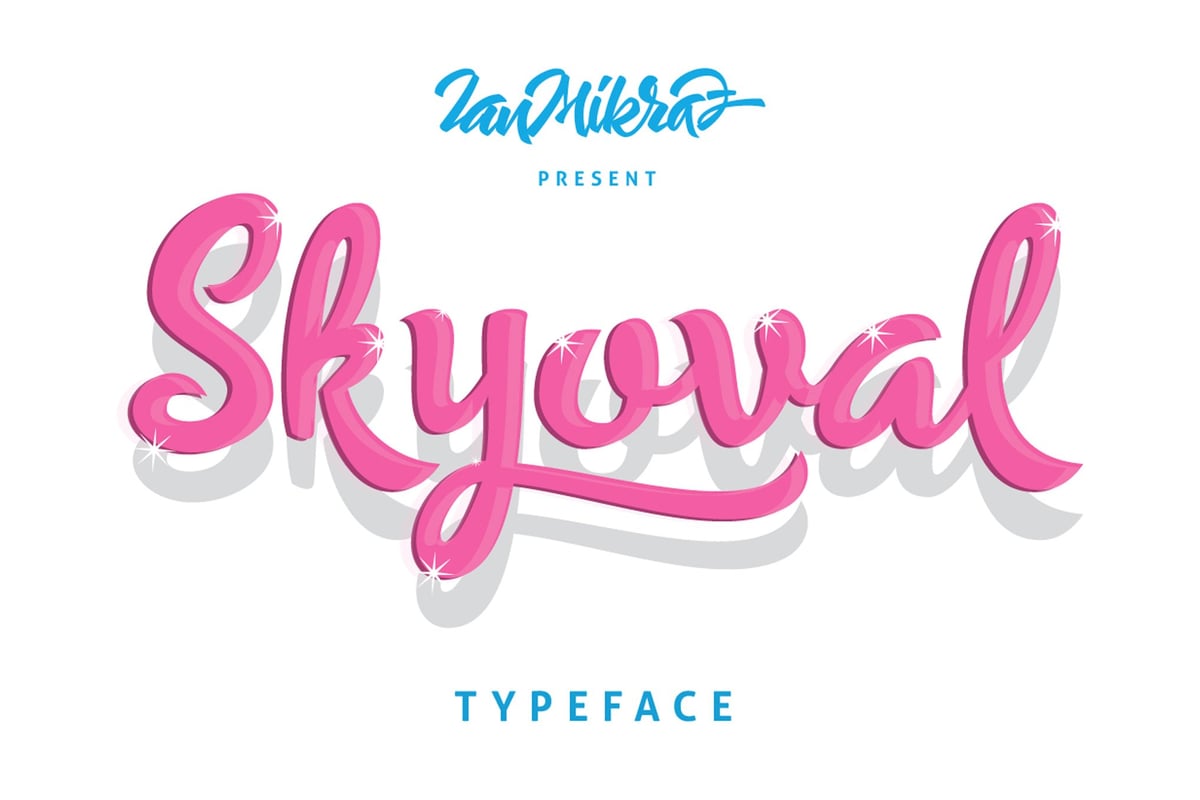
Skyoval Typeface
Skyoval is a bold, modern calligraphy typeface built for designers who want elegant hand-lettered style with professional flexibility.
Skyoval Typeface is a stylish hand-lettering script that blends boldness with elegance. Whether you're designing a logo, branding for an apparel line, or any project that calls for a natural, personal touch — Skyoval delivers with confidence.
Packed with 344 glyphs and 156 alternate characters, this typeface gives you plenty of creative freedom to mix and match letterforms for a truly custom look. OpenType features are fully supported in programs like Adobe Illustrator, Adobe InDesign, and CorelDraw X6–X7. For programs that don't support OpenType (such as Photoshop), alternate characters can be accessed via the Windows Character Map.
OpenType Features:
- Swash alternates
- Contextual alternates
- Stylistic sets
- Standard ligatures
Skyoval is ideal for apparel branding, logotypes, typography-driven designs, packaging, and any creative work that benefits from a warm, handcrafted aesthetic.